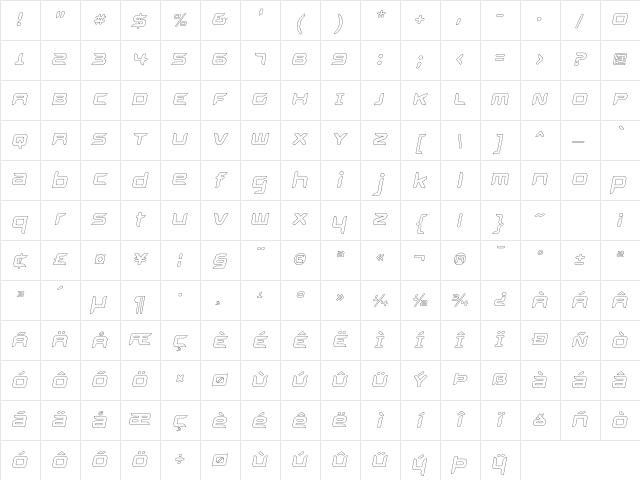
Complete Aura OutlineOblique glyph index. Displaying only characters natively supported by Aura OutlineOblique font.
Aura is built around its visual character rather than neutral utility - its distinctive forms are designed to make an impression at display sizes. The slanted form adds forward momentum and visual energy.
Font Pairing: Pair with a clean neutral sans-serif for body copy to let Aura's character lead without overwhelming the composition.
Pro Tip: Use Aura exclusively at display sizes - it was designed to be seen, not read at length. Let a neutral companion handle body copy.